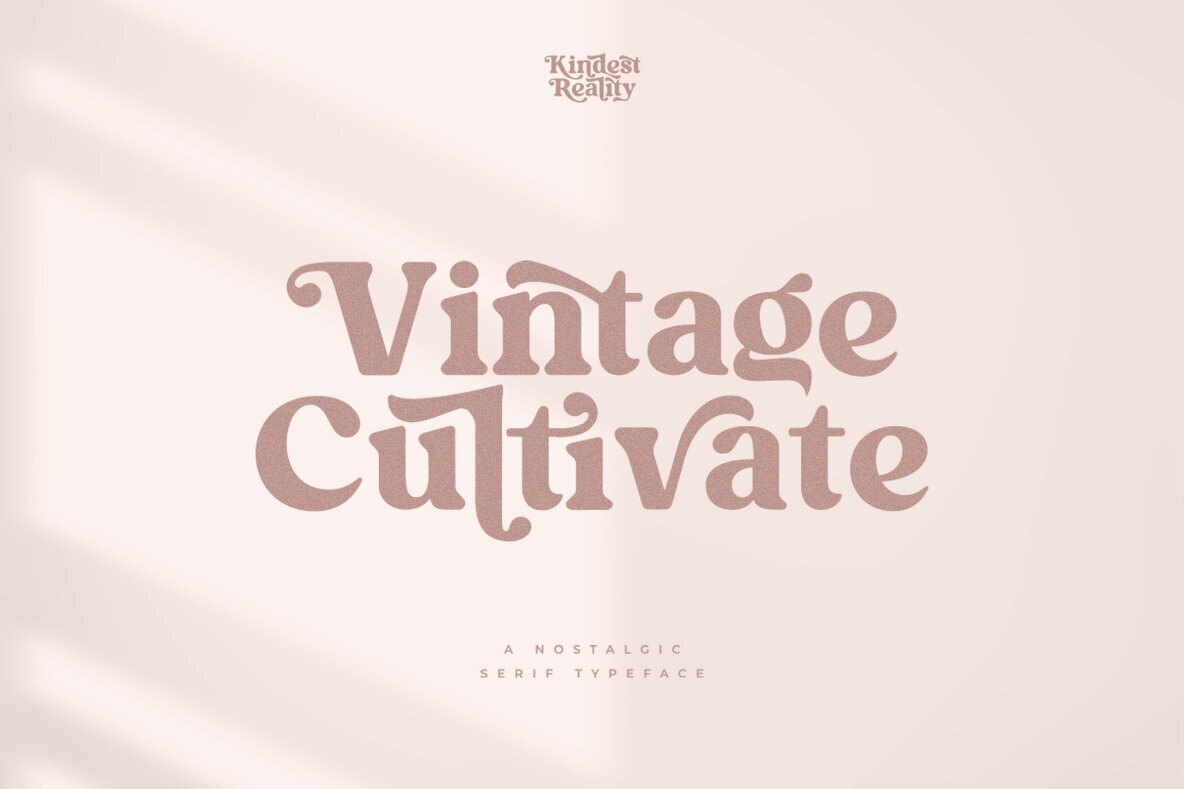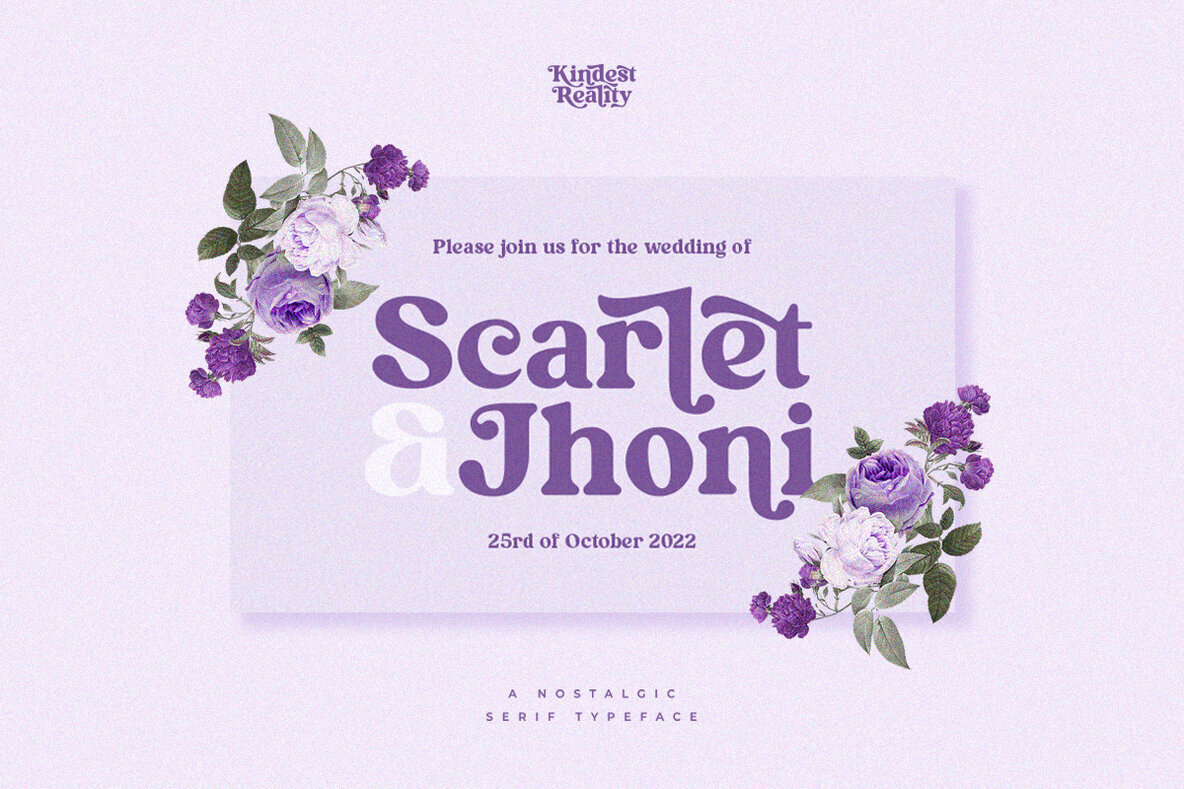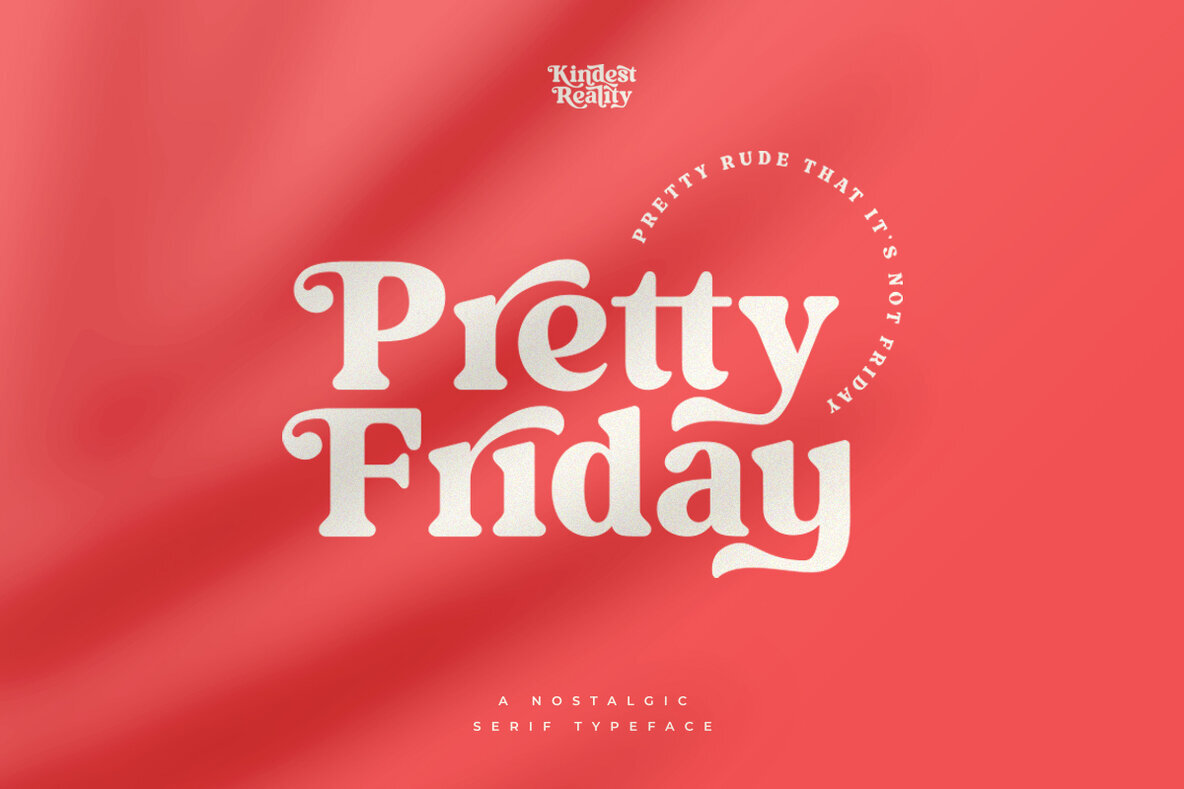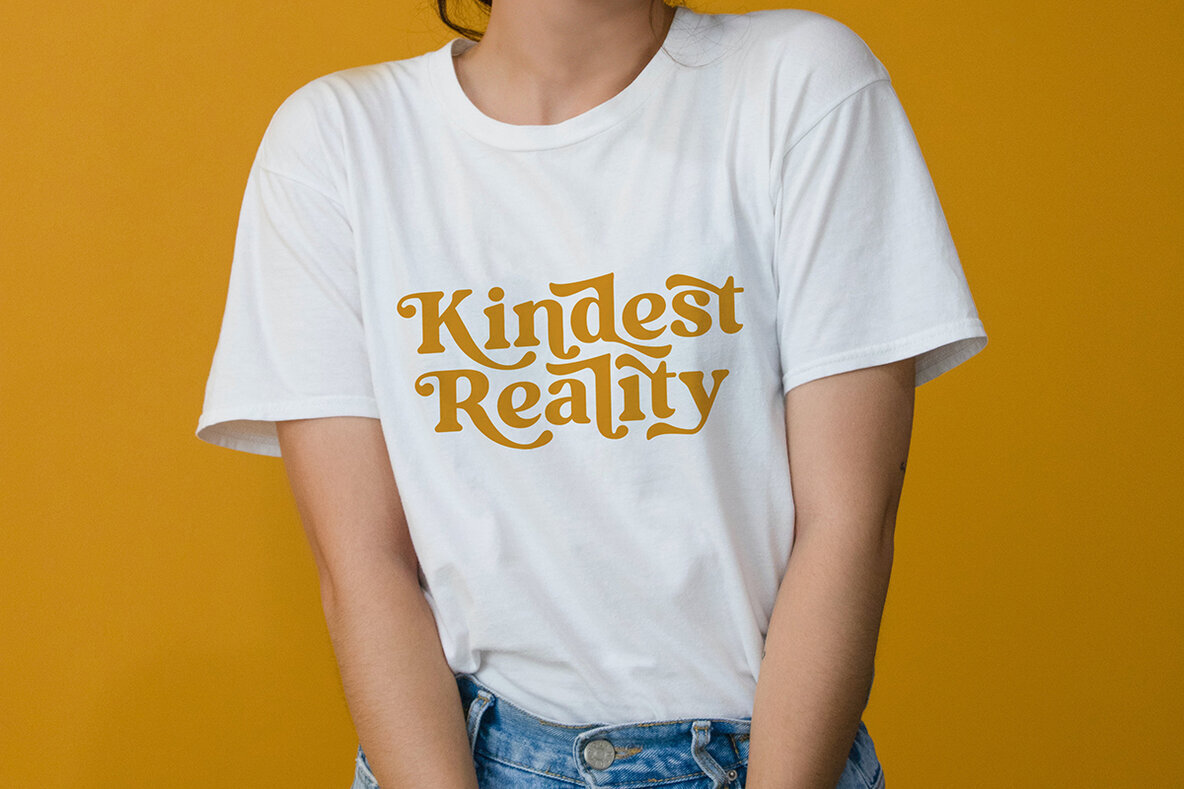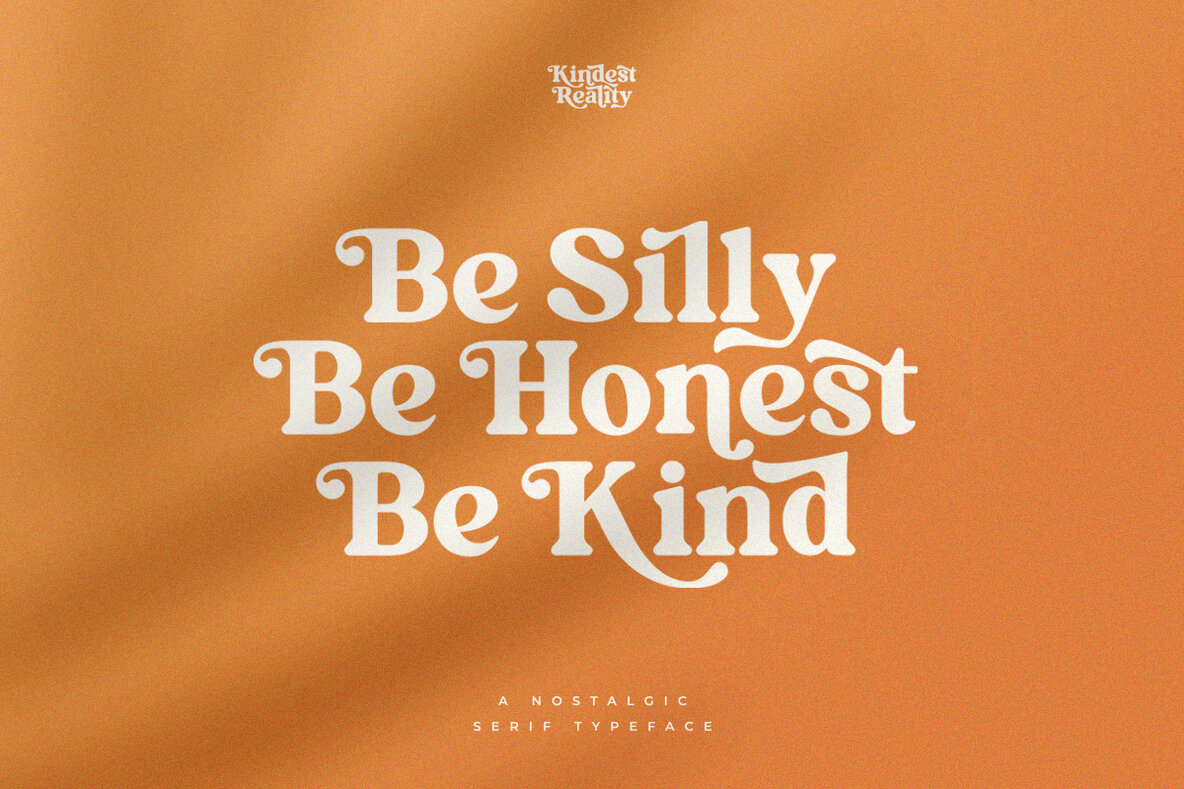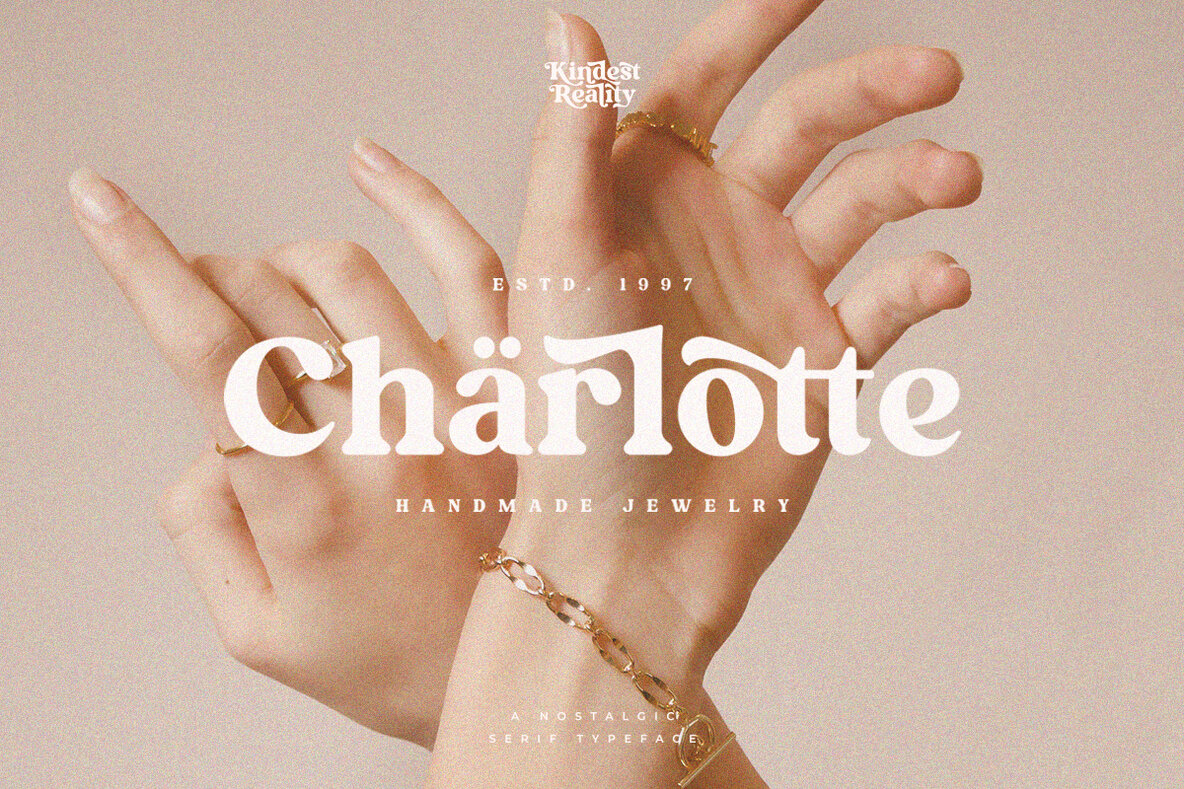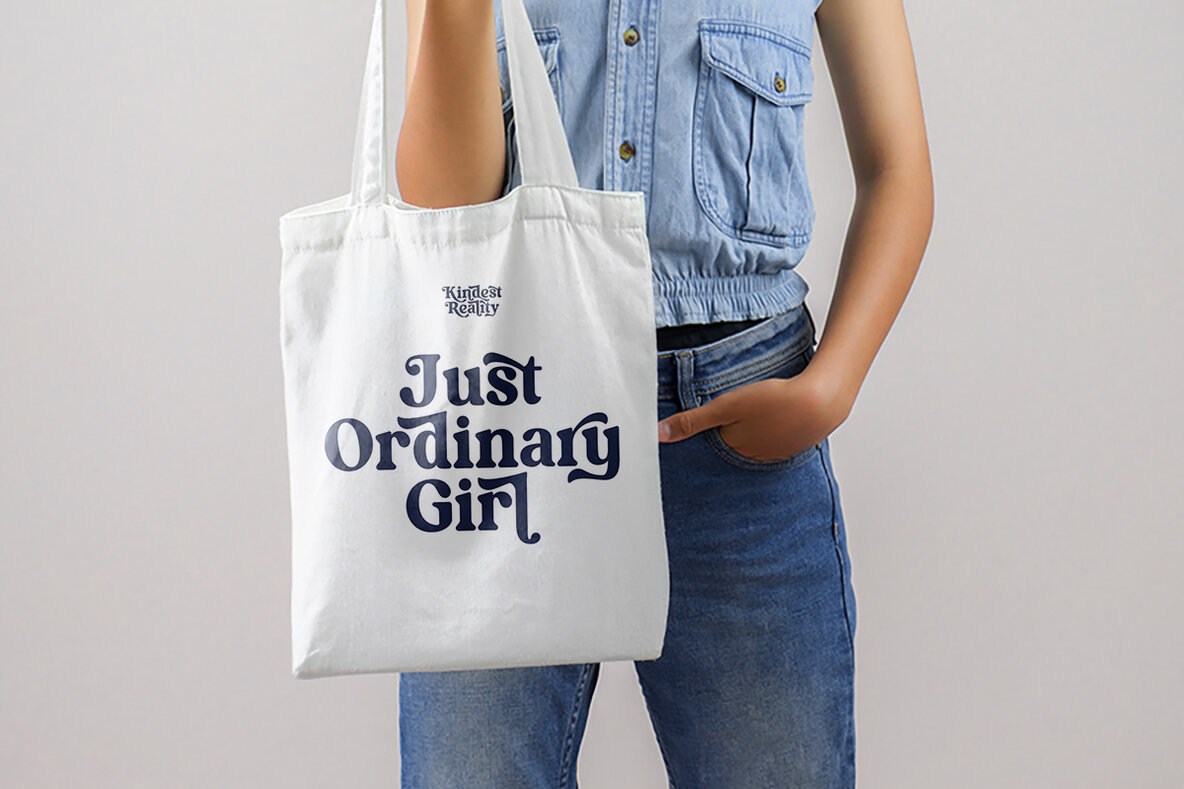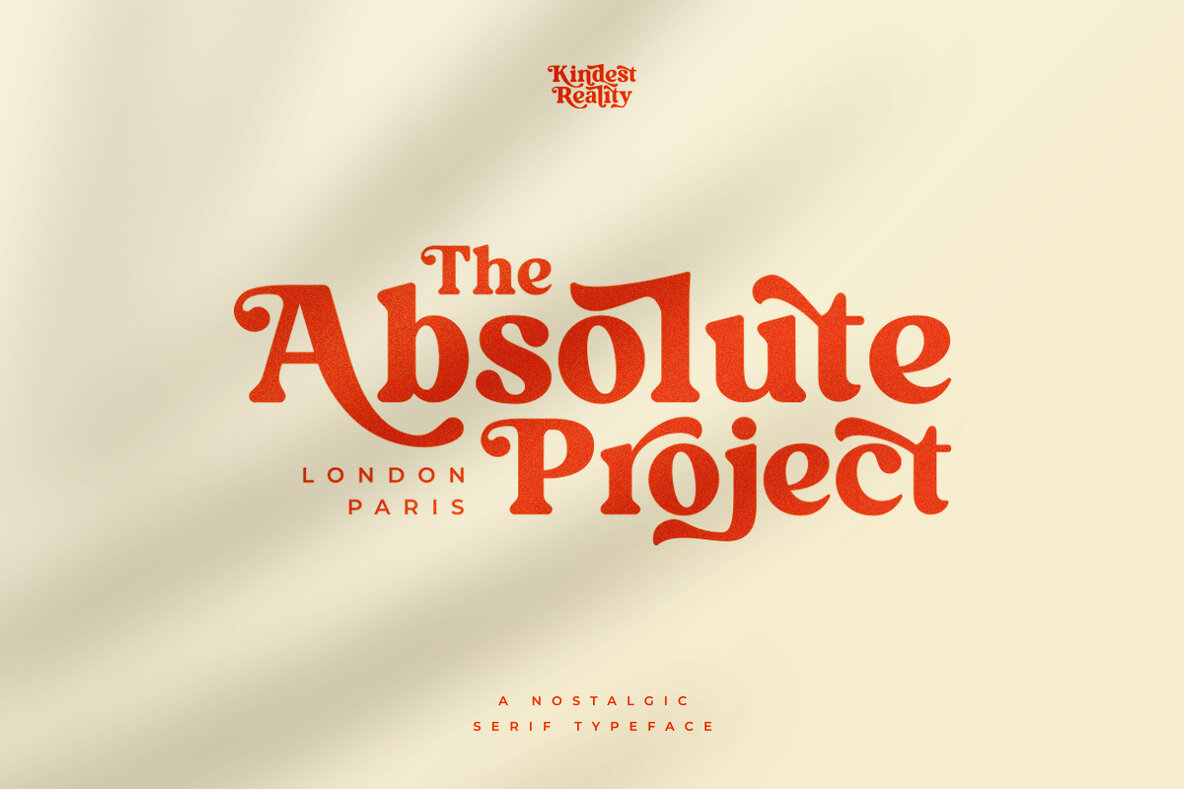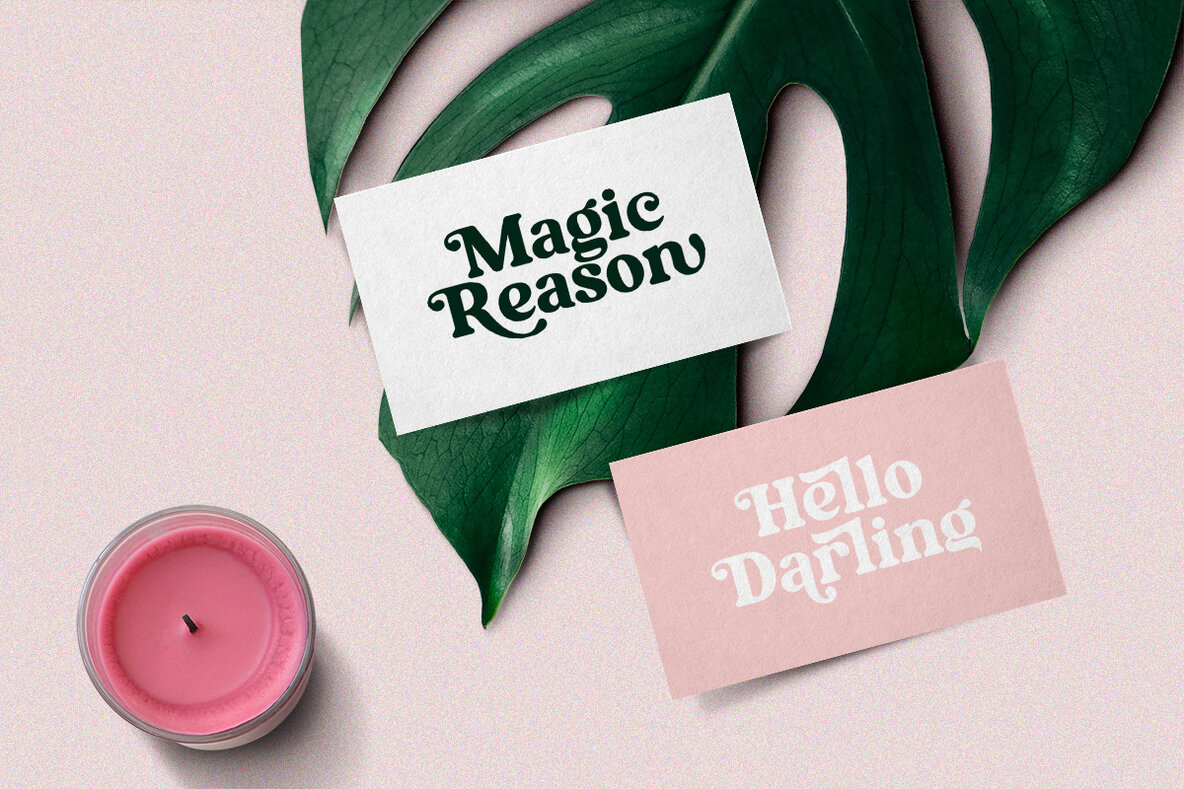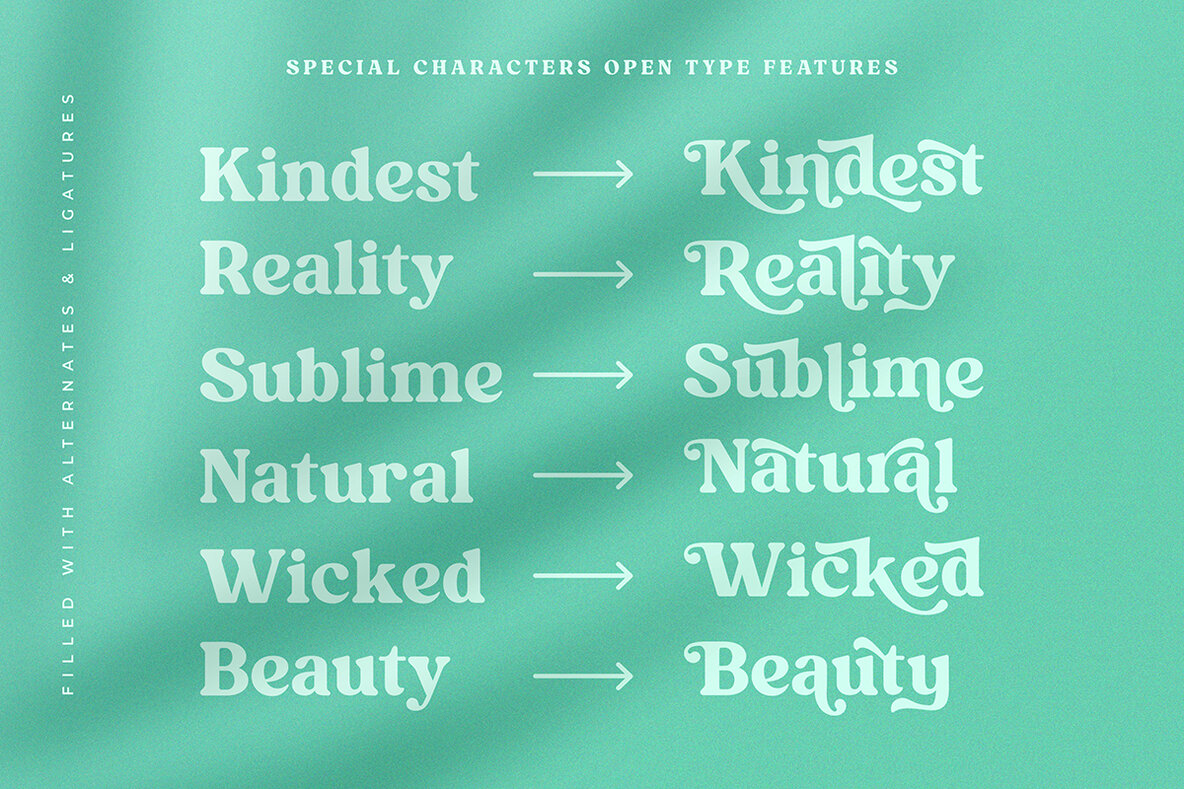
Kindlest Realty: Nostalgic Serif Font for Timeless Designs
Kindlest Realty stands as a tribute to the charm of yesteryear, drawing inspiration from the sophistication and gentle curves typical of serif typography. This font encapsulates a classic aesthetic, offering a perfect blend of old-world elegance and modern versatility.
• Classically Curved Characters – Evokes a sense of nostalgia and tradition.
• Timeless Elegance – Perfectly suited for branding and editorial design.